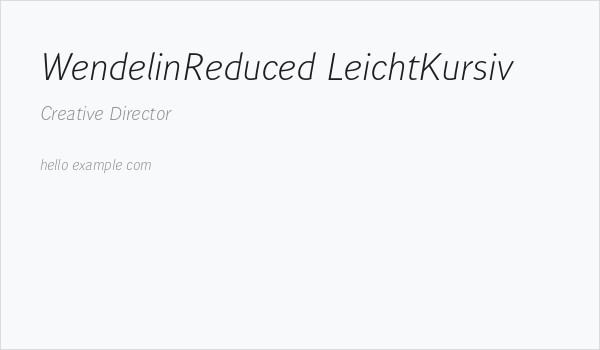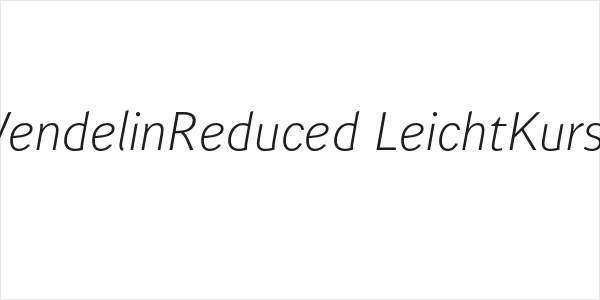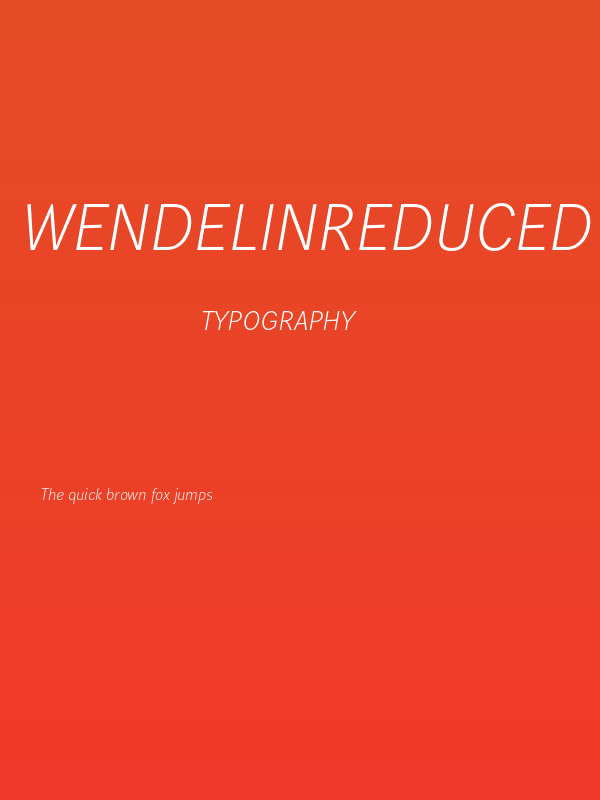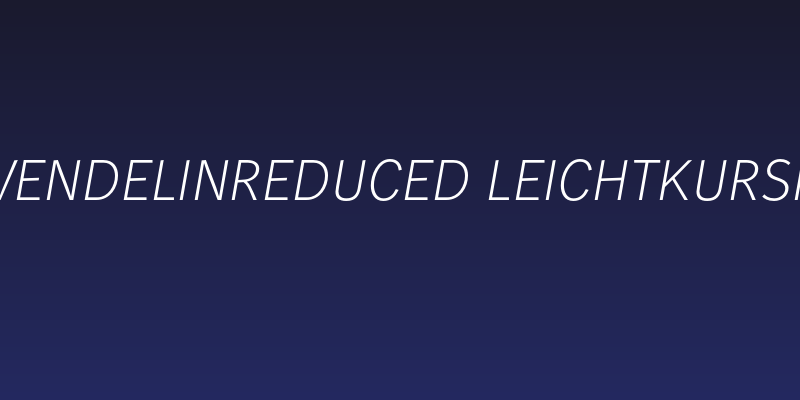
WendelinReduced-LeichtKursiv Font
WendelinReduced-LeichtKursiv Description
This font features a sleek and modern design with a slight italic slant, giving it a dynamic and elegant appearance. The characters are well-proportioned with a consistent stroke width, contributing to a clean and sophisticated look. The uppercase and lowercase letters maintain a harmonious balance, while the numerals and special characters are designed to complement the overall style. The font's simplicity and clarity make it versatile for various design applications.
| Proposed Projects | Ideal for branding, editorial design, websites, and advertising materials where a modern and sophisticated look is desired. |